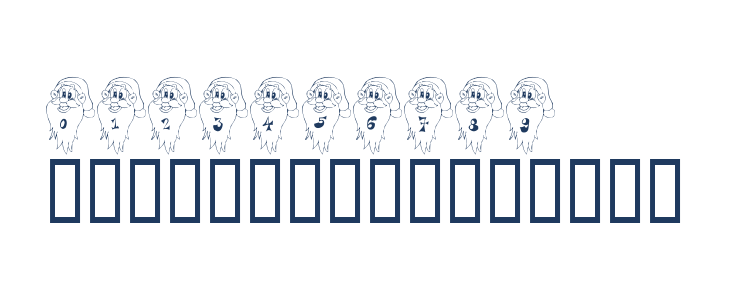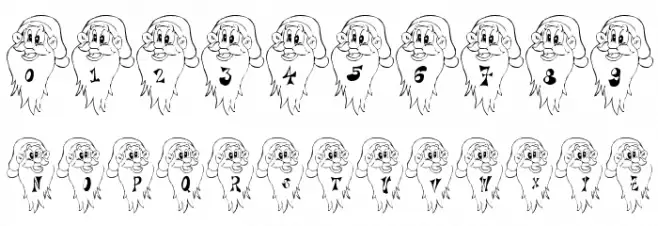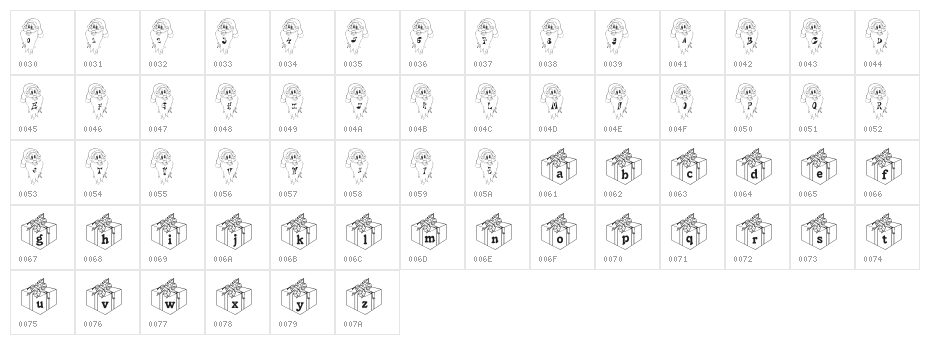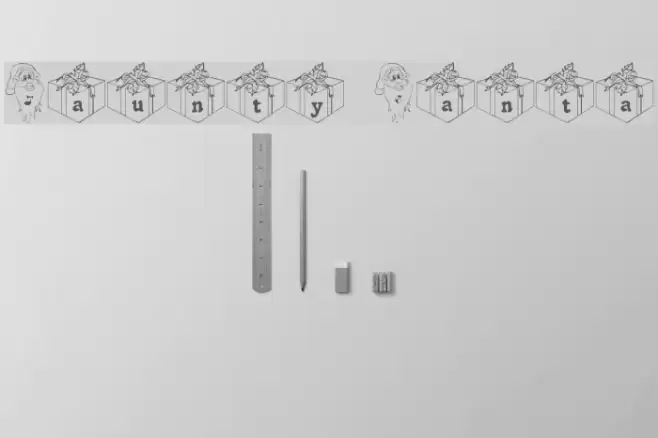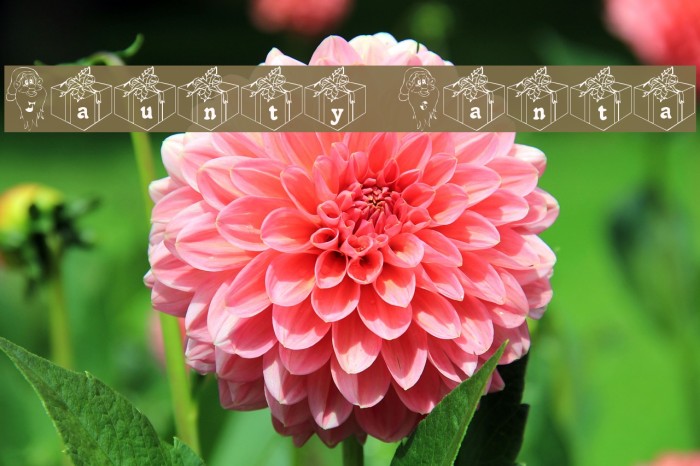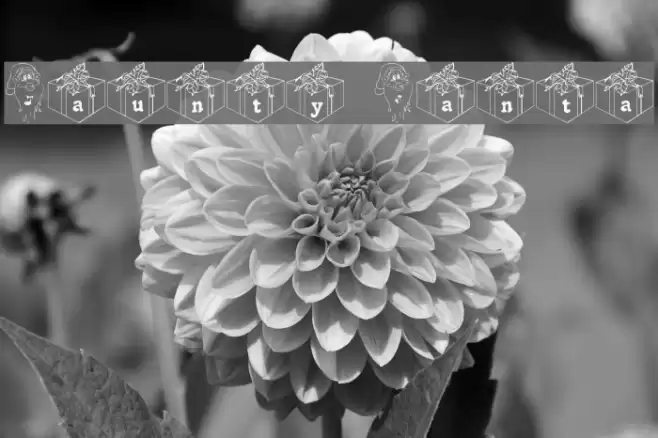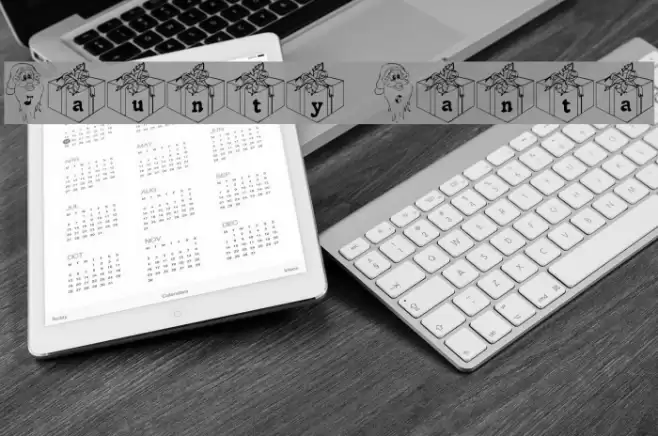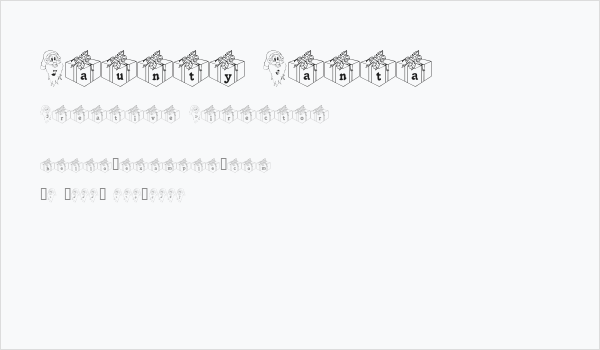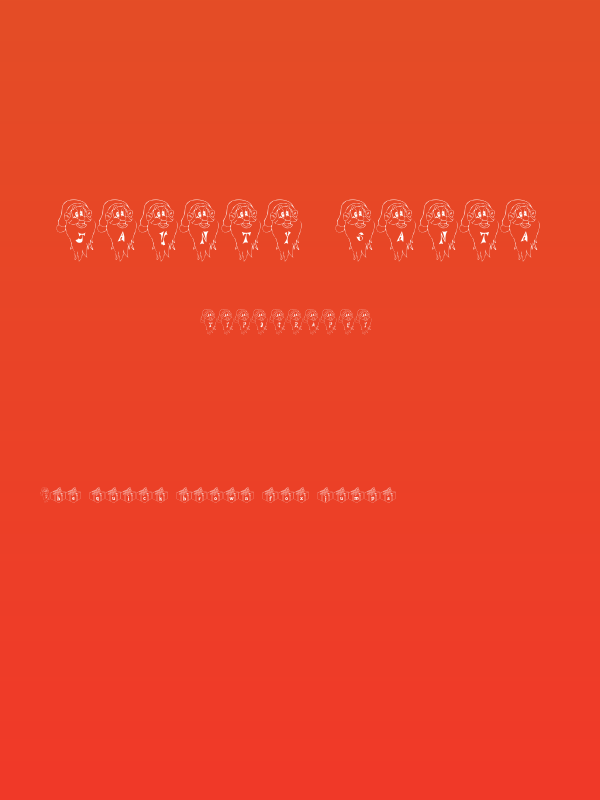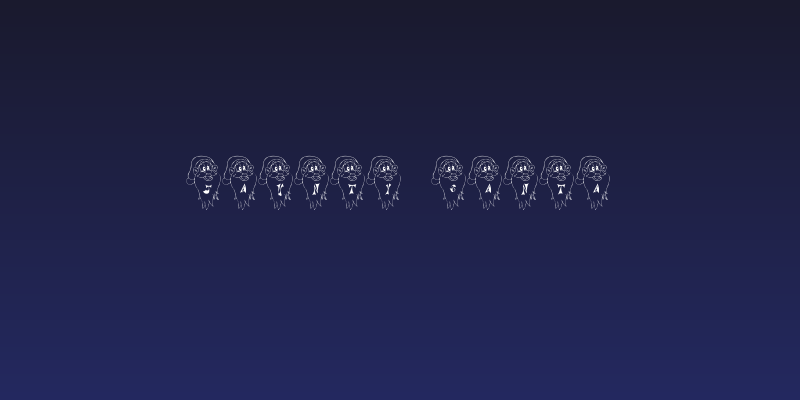
Jaunty Santa Font
Jaunty Santa Description
This whimsical and festive font features uppercase letters adorned with playful Santa Claus faces, adding a cheerful holiday spirit to each character. The lowercase letters are creatively designed as gift boxes, complete with ribbons, enhancing the festive theme. The numbers also incorporate the Santa Claus motif, maintaining a consistent and joyful aesthetic throughout. This font is perfect for holiday-themed projects, offering a unique and decorative style that captures the essence of Christmas with its imaginative design.
| Proposed Projects | Ideal for Christmas cards, holiday banners, festive invitations, and seasonal marketing materials. |